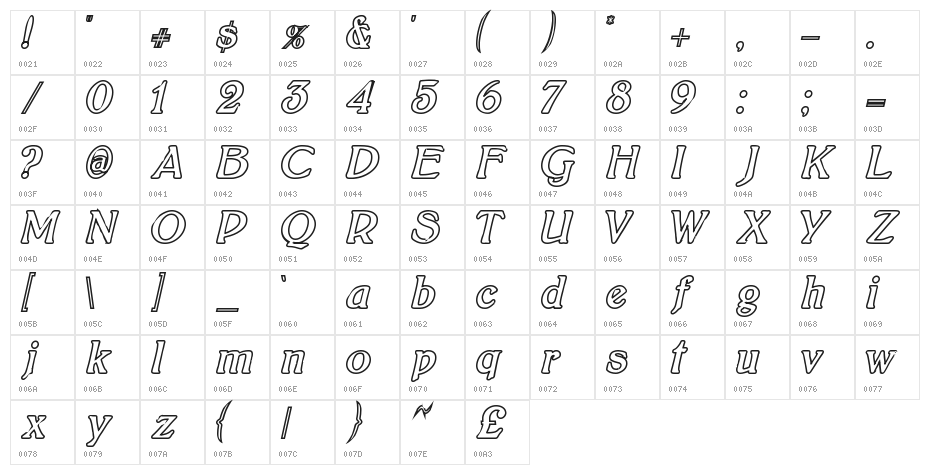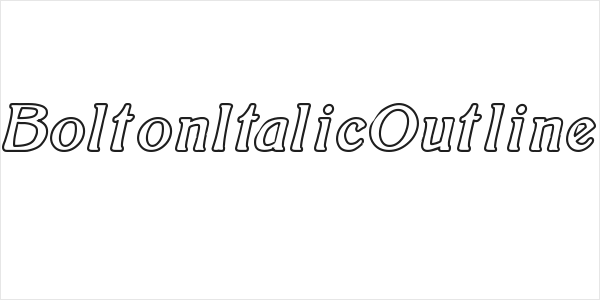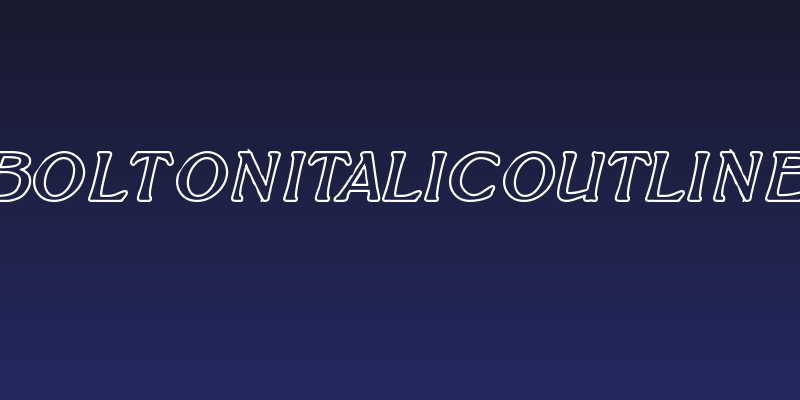
BoltonItalicOutline Font
BoltonItalicOutline Description
This font features a distinctive italic style with an outlined design, giving it a unique and eye-catching appearance. The characters are slanted, adding a sense of motion and elegance. The outline effect provides a bold contrast, making the letters stand out while maintaining a light and airy feel. The uppercase and lowercase letters are well-proportioned, and the numerals are clear and easy to read. Special characters are included, enhancing its versatility. This font is ideal for projects that require a touch of sophistication and creativity.
| Proposed Projects | Ideal for creative projects such as posters, logos, and headlines where a unique and elegant style is desired. |